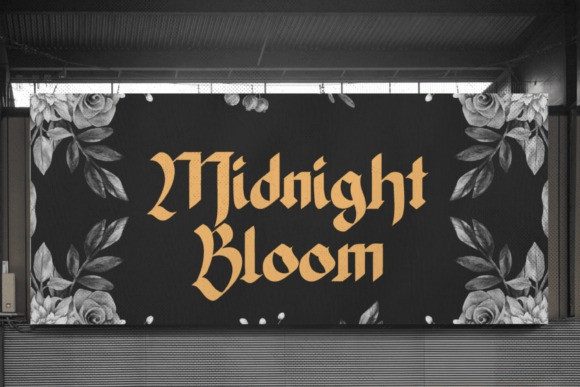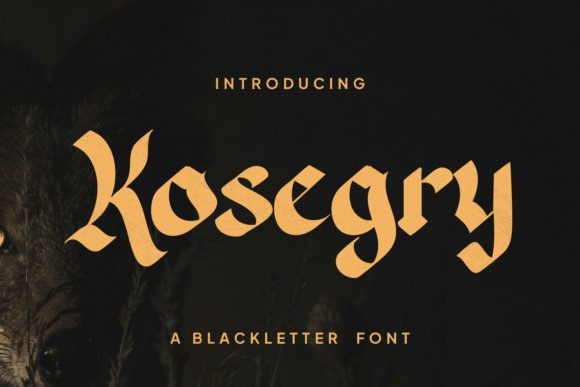
Kosegry Font
Kosegry Font, a blackletter font that seamlessly merges the sophistication of gothic grace with raw modernity. Painstakingly fashioned, every letter boasts of distinct sharp features and emphatic outlines, yielding a visually stunning and impactful aesthetic. It’s an ideal choice for ventures desiring a robust, dark and enigmatic presence, ranging from captivating movie posters, intense metal band insignia, alluring fantasy book covers to gothic clothing design. Kosegry masterfully carries forth the enduring allure of medieval lettering to the present day, adding a striking and memorable personality to your designs.